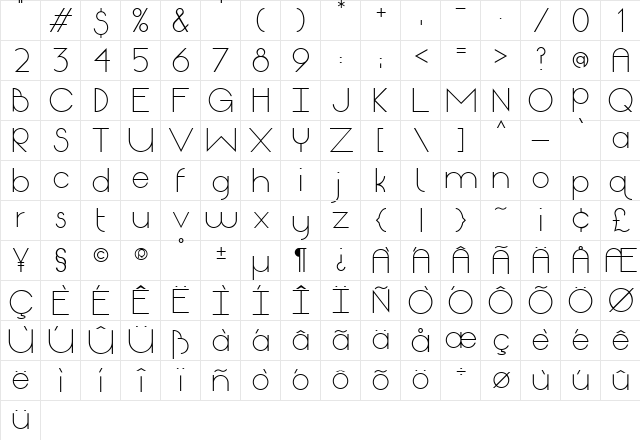
Origin Light Light
| Designer | TitanVex |
Design Context for Origin Light Typeface
Origin Light offers clean, dependable letterforms without strong stylistic allegiance, making it a practical choice for designers who need flexibility. Its slender proportions lend an understated elegance to any composition.